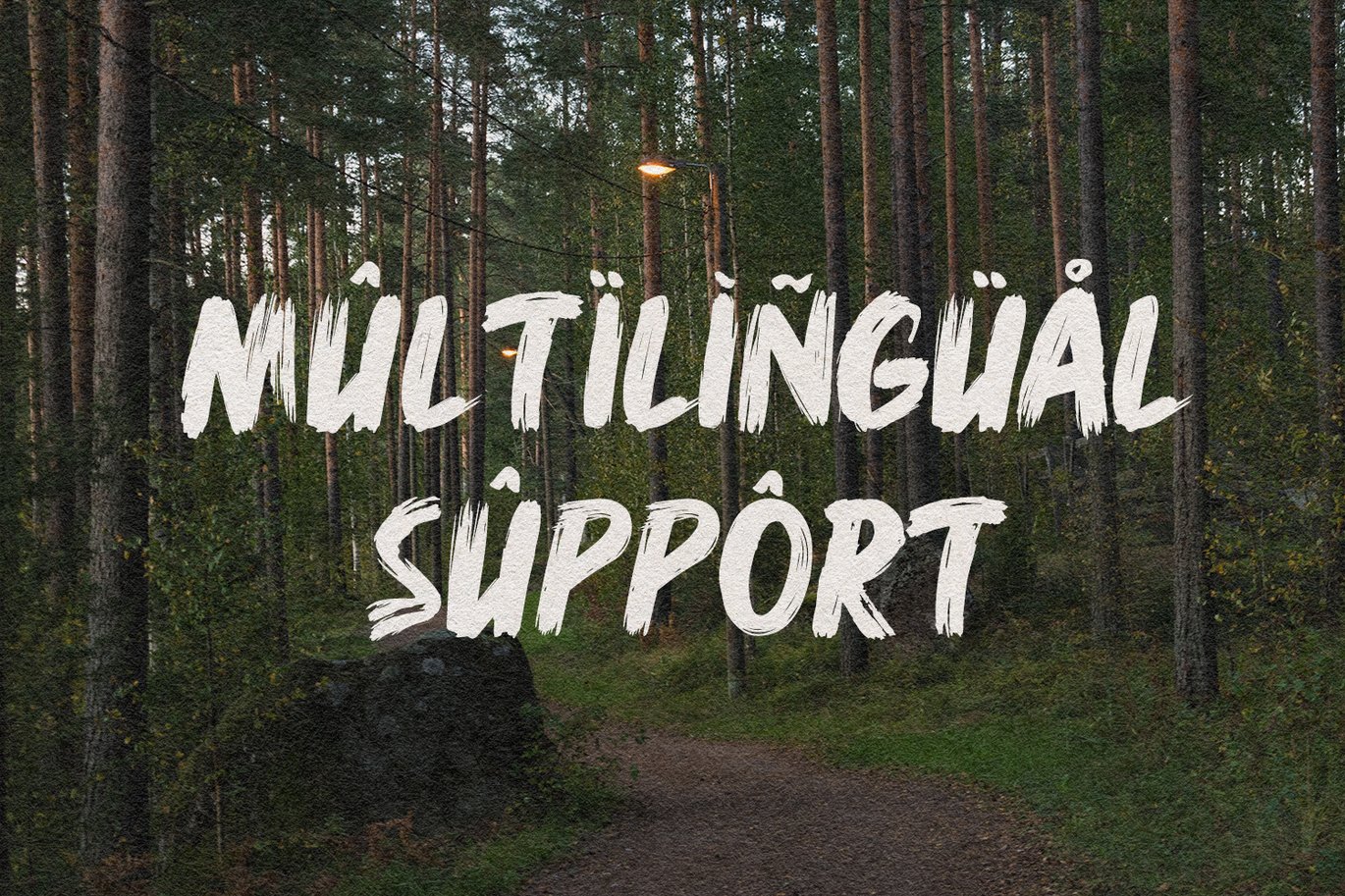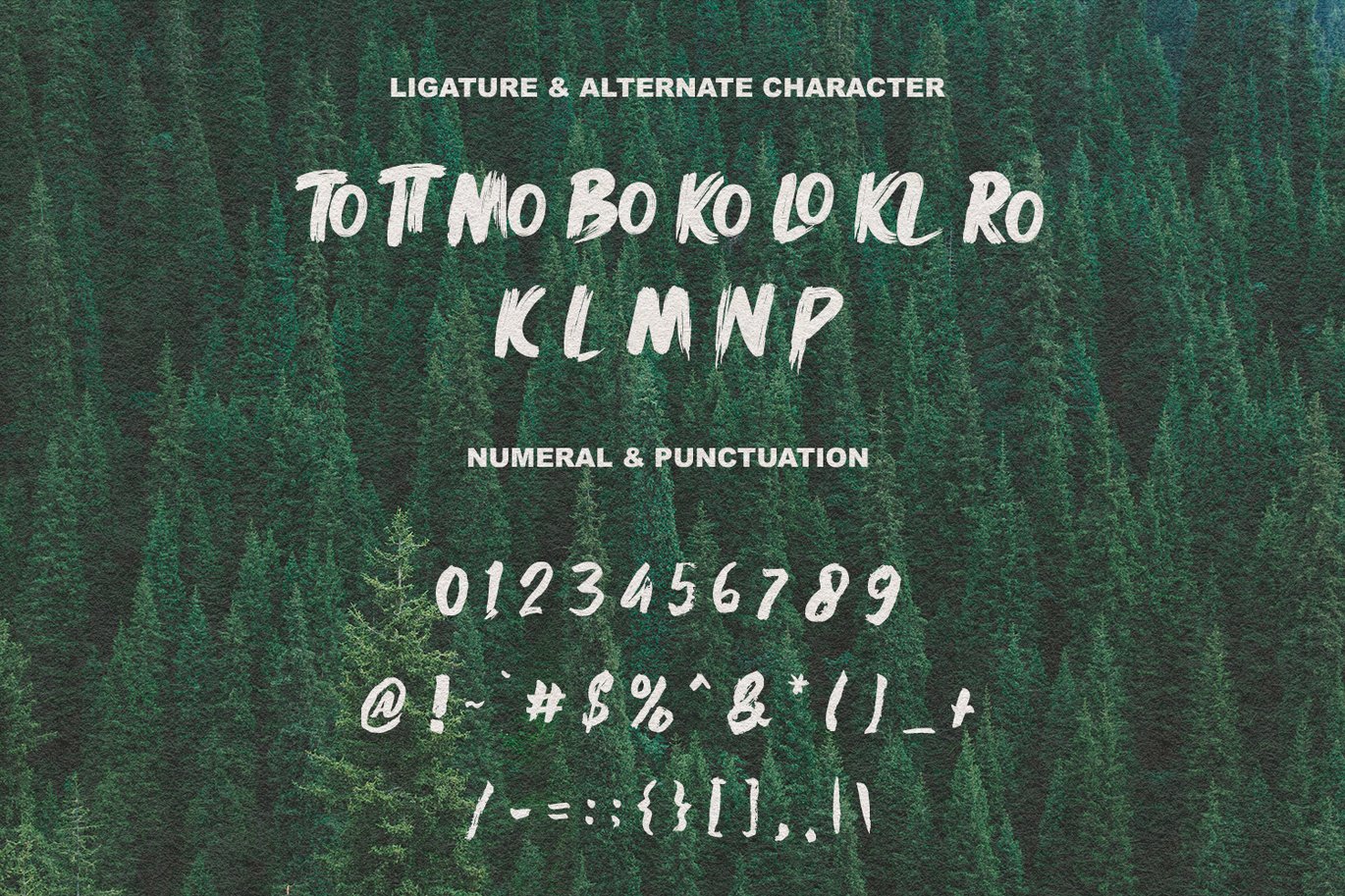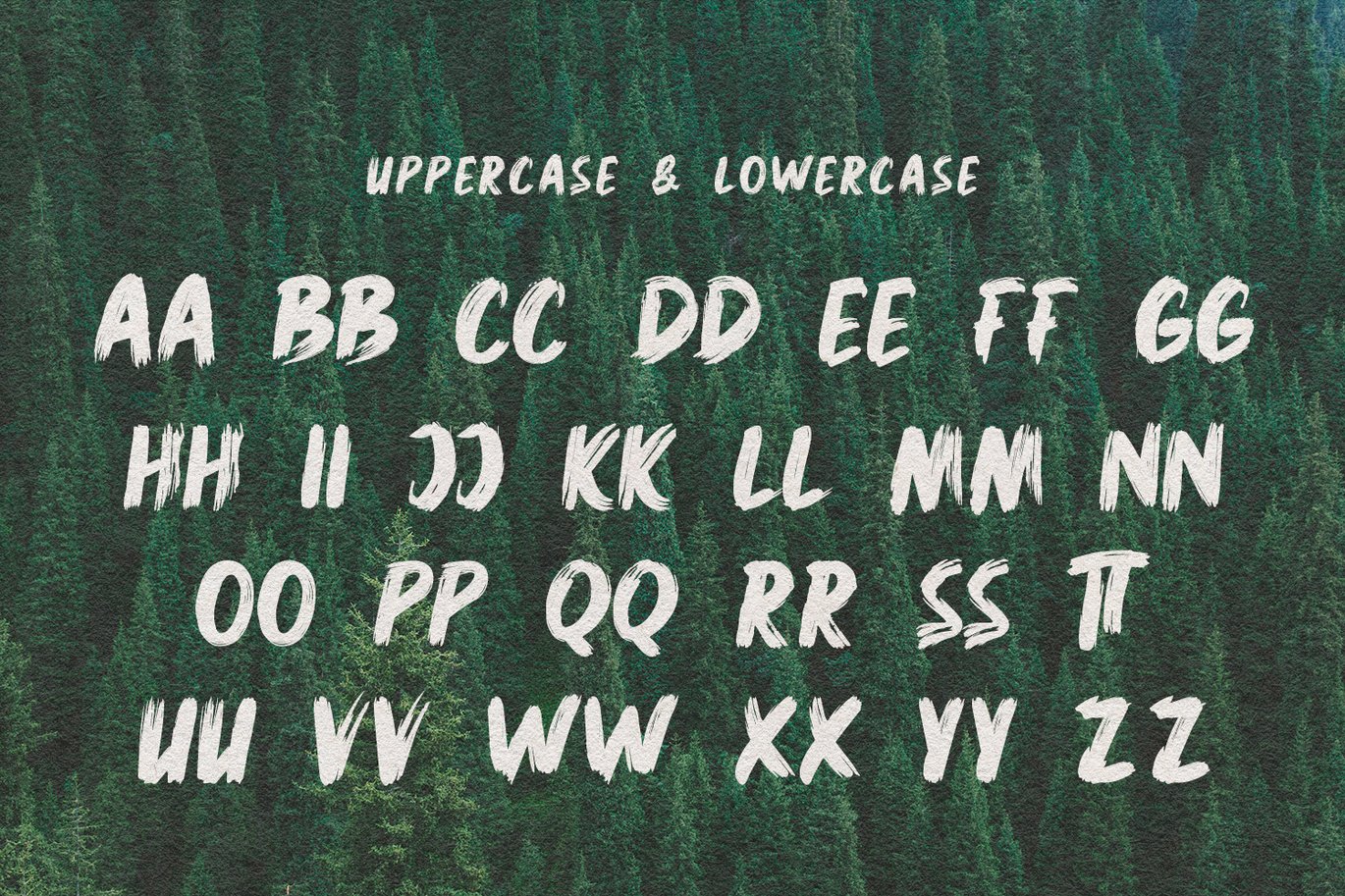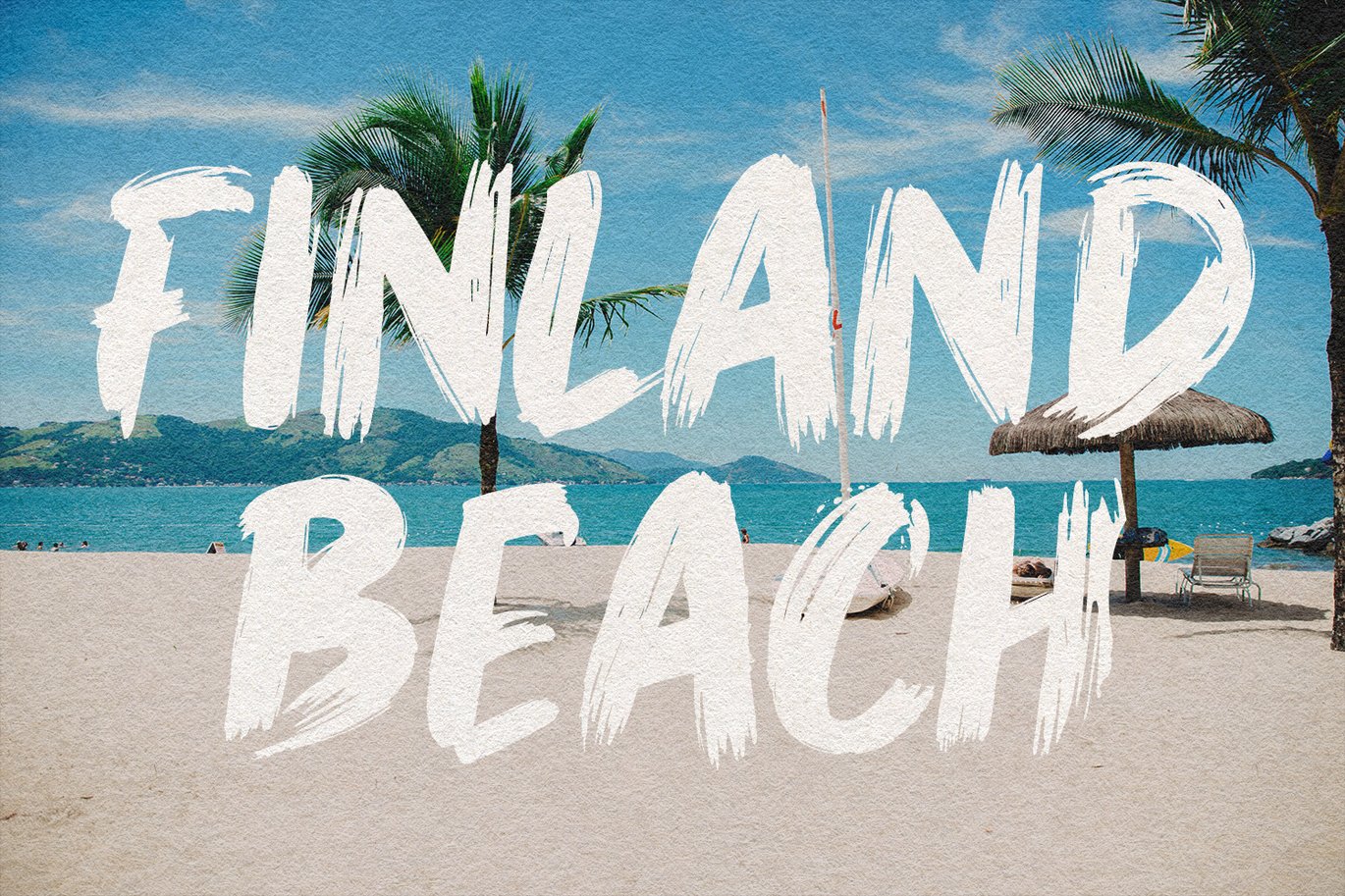
Rickbers Brush Font
Rickbers brush font. With three weight stroke, fun character with a bit of ligatures. To give you an extra creative work. Rickbers brush font support multilingual more than 100+ language. This font is good for logo design, Social media, Movie Titles, Books Titles, a short text even a long text letter and good for your secondary text font with sans or serif. Make a stunning work with Rickbers brush font.